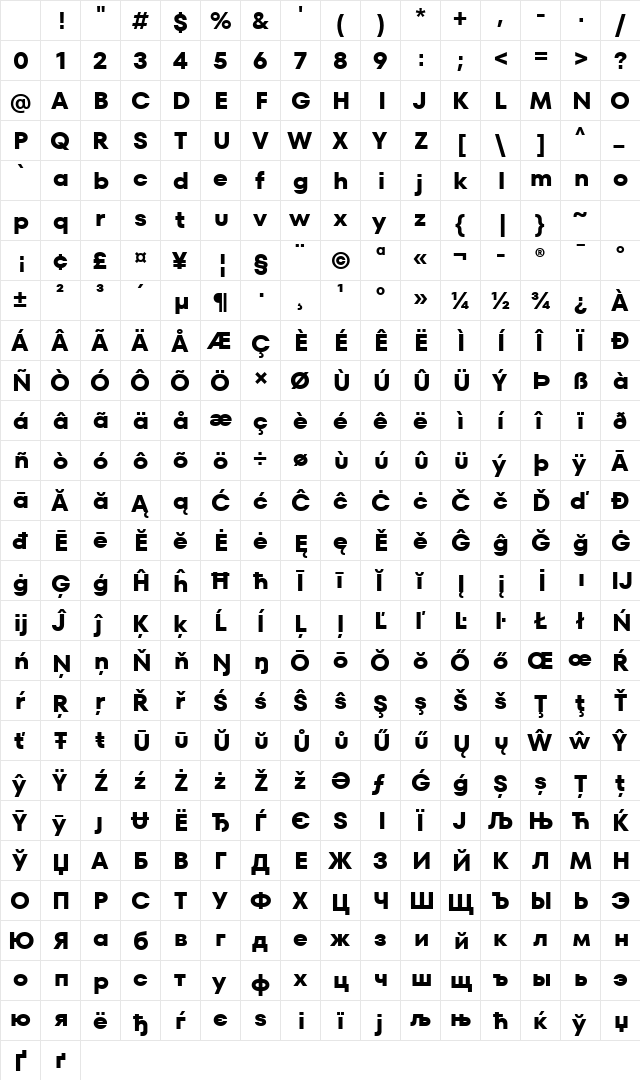
TT Fors Trial Bold Free Font
TT Fors Trial Bold
Designer: TypeType
Complete TT Fors Trial Bold glyph index. Displaying only characters natively supported by TT Fors Trial Bold font.
Design Context for TT Fors Trial
TT Fors Trial is a composed and adaptable typeface that performs quietly and consistently across a wide range of design contexts. Its bold stroke weight gives it real presence on the page.